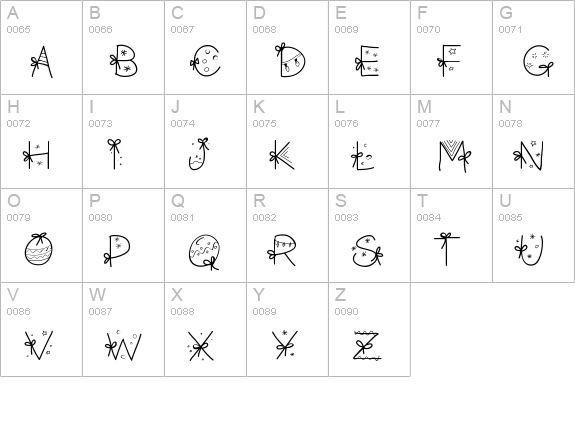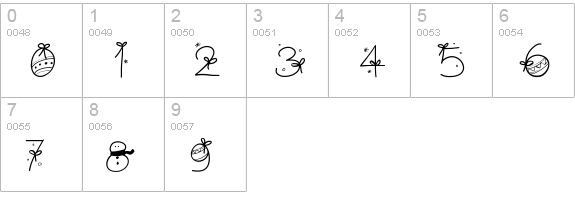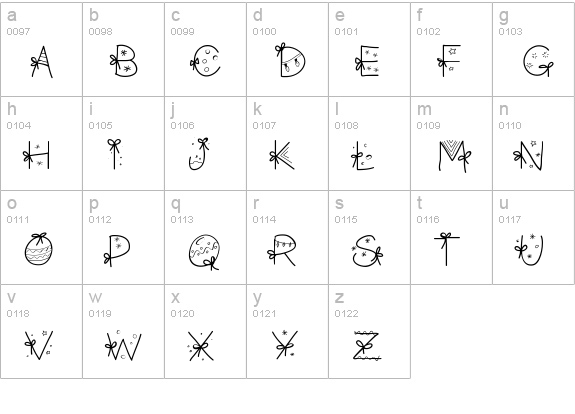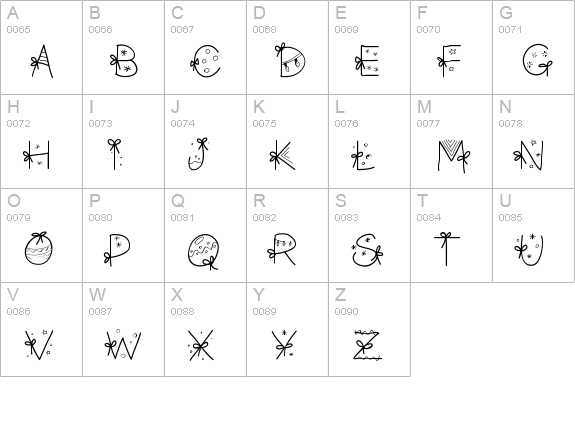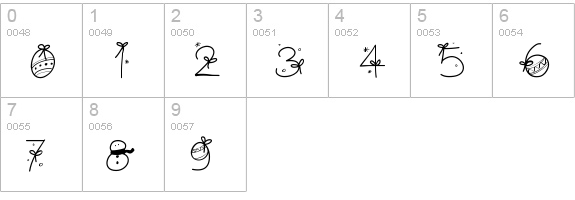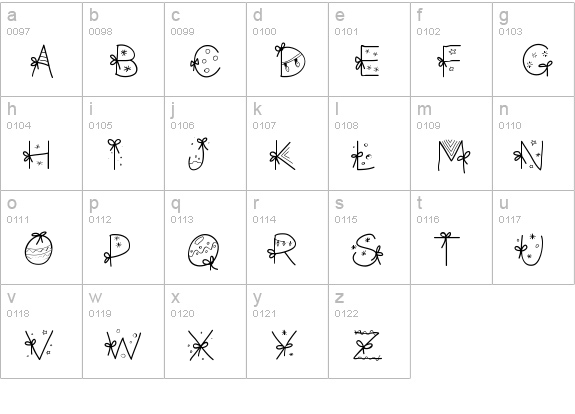
PWChristmasfont Font Details
Introducing PWChristmasfont, a delightful and whimsical font that captures the essence of the holiday season. This unique typeface is perfect for adding a touch of festive cheer to your designs, whether it be greeting cards, invitations, or holiday-themed crafts. PWChristmasfont features a playful and decorative style, with each letter adorned with charming holiday-inspired elements. From snowflakes and candy canes to holly leaves and twinkling stars, every character is intricately designed to evoke a sense of joy and merriment. What sets PWChristmasfont apart is not only its enchanting design but also the fact that it is free! Yes, you read that right. This font is freely available to download at FontsMarket.com, making it accessible to all who want to add a touch of holiday magic to their creations. With PWChristmasfont, you can effortlessly create eye-catching and memorable designs that will captivate your audience and spread the holiday spirit. So go ahead, download this delightful font today and let your creativity shine this Christmas season.